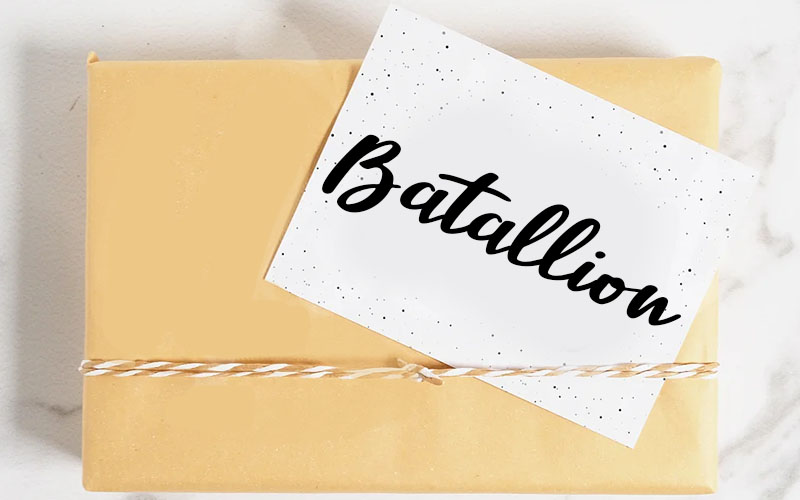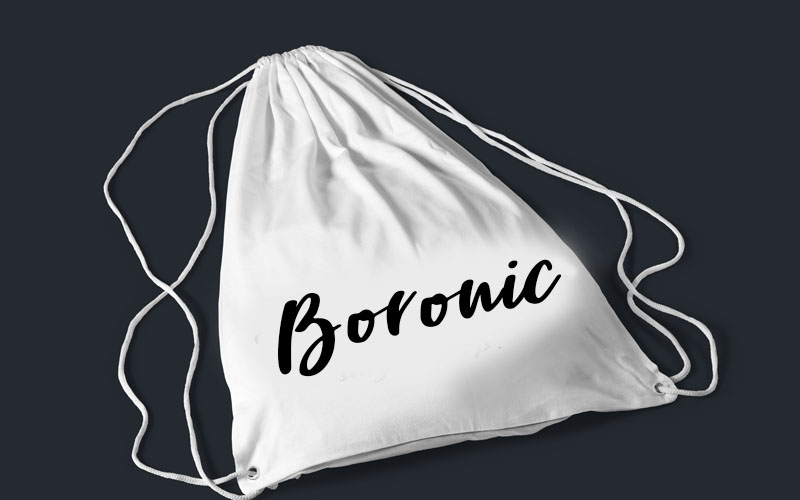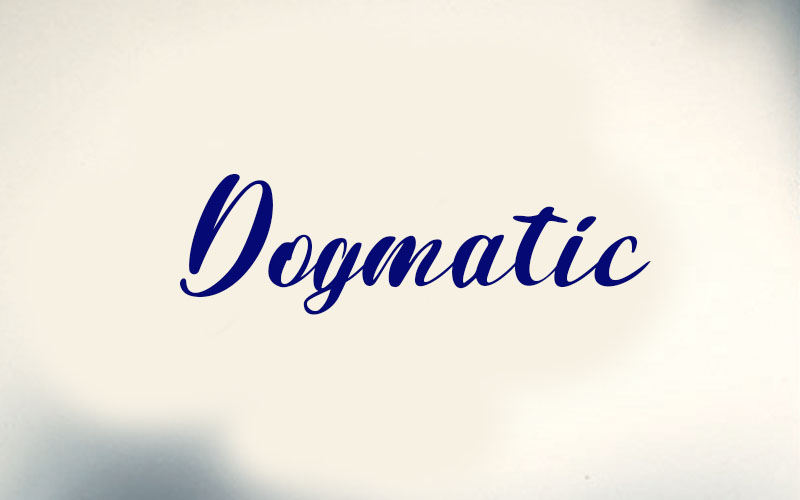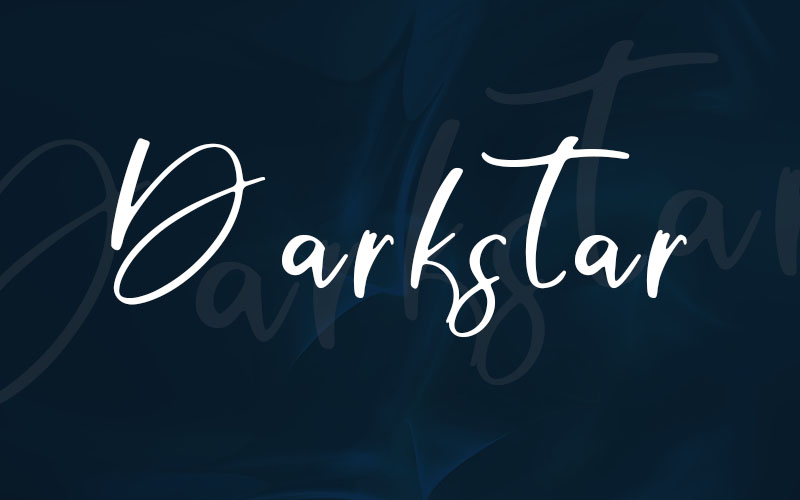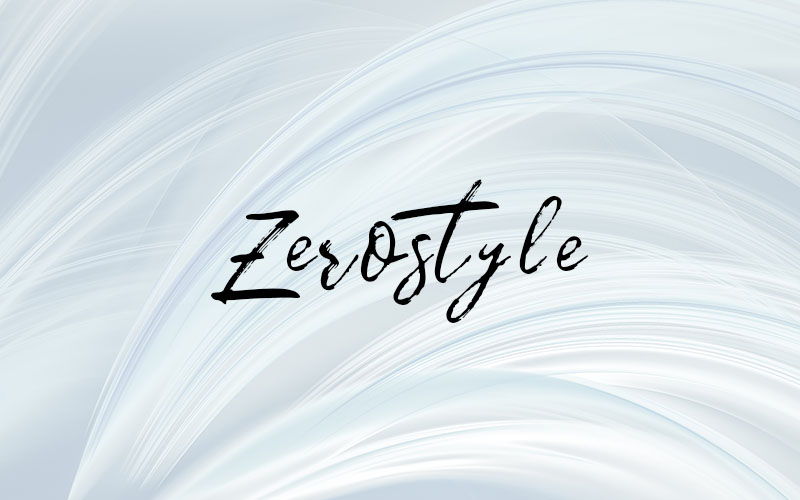
The Wanderer Fonts Bundle
The Most Exciting Fonts Ever!
The Wanderer Fonts Bundle is relentless in its choice of fonts. Black Label script font, for example, has captivated designers.
‘Hey Kent’ is another exciting font. Then there is the newly introduced Battalion handwritten font. For all your beachy designs, there is even the Brighton Beach font. Moving on, the Best Choice font truly makes for a smart choice! Feeling dogmatic? You even have the Dogmatic font for that!
Dark Star is another exciting, beautiful font. Desert Strike is a modern script font you could put to use in diverse designs. True to its name, the Fully Flared font is all flared up. Then there is the handmade Great Wall font. The ‘Health’ font is a lovely script typeface that is adored by many. Of course, who can resist the charms of the Handsome Devil handwritten script?
As you can see, this bundle has some irresistibly impressive fonts.